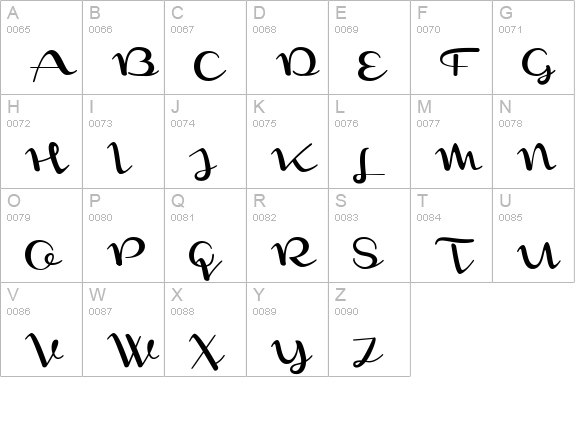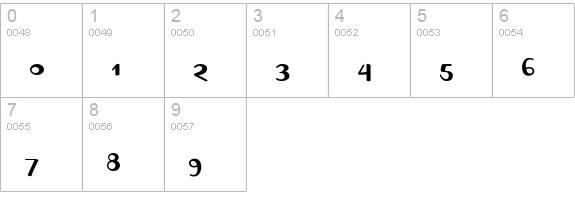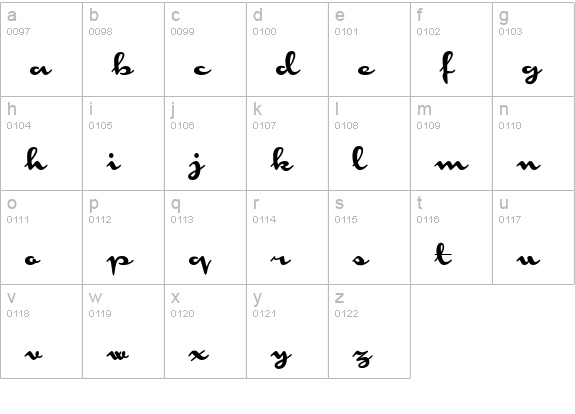
Monoment Font Details
Introducing Monoment, a stunning font that exudes elegance and sophistication. Crafted with meticulous attention to detail, Monoment is the perfect choice for those seeking a modern yet timeless typeface. With its clean lines and balanced proportions, Monoment effortlessly captures attention and adds a touch of class to any design project. Whether you're creating a logo, branding materials, or even a wedding invitation, this versatile font is sure to elevate your designs to new heights. What sets Monoment apart is not just its stunning aesthetics, but also its accessibility. It is a font that believes in the power of inclusivity, and as such, it is available free of charge. That's right, Monoment can be freely downloaded at FontsMarket.com, allowing designers of all backgrounds and budgets to enjoy its beauty and versatility. By making Monoment accessible to all, the creators behind this font hope to inspire creativity and empower designers to bring their visions to life without any limitations. Whether you're a seasoned professional or just starting out, Monoment opens up a world of possibilities, inviting you to explore and create with confidence. So don't miss out on the opportunity to add this remarkable font to your collection. Head over to FontsMarket.com now and download Monoment for free. Unleash your creativity and let Monoment be the catalyst for your next extraordinary design.